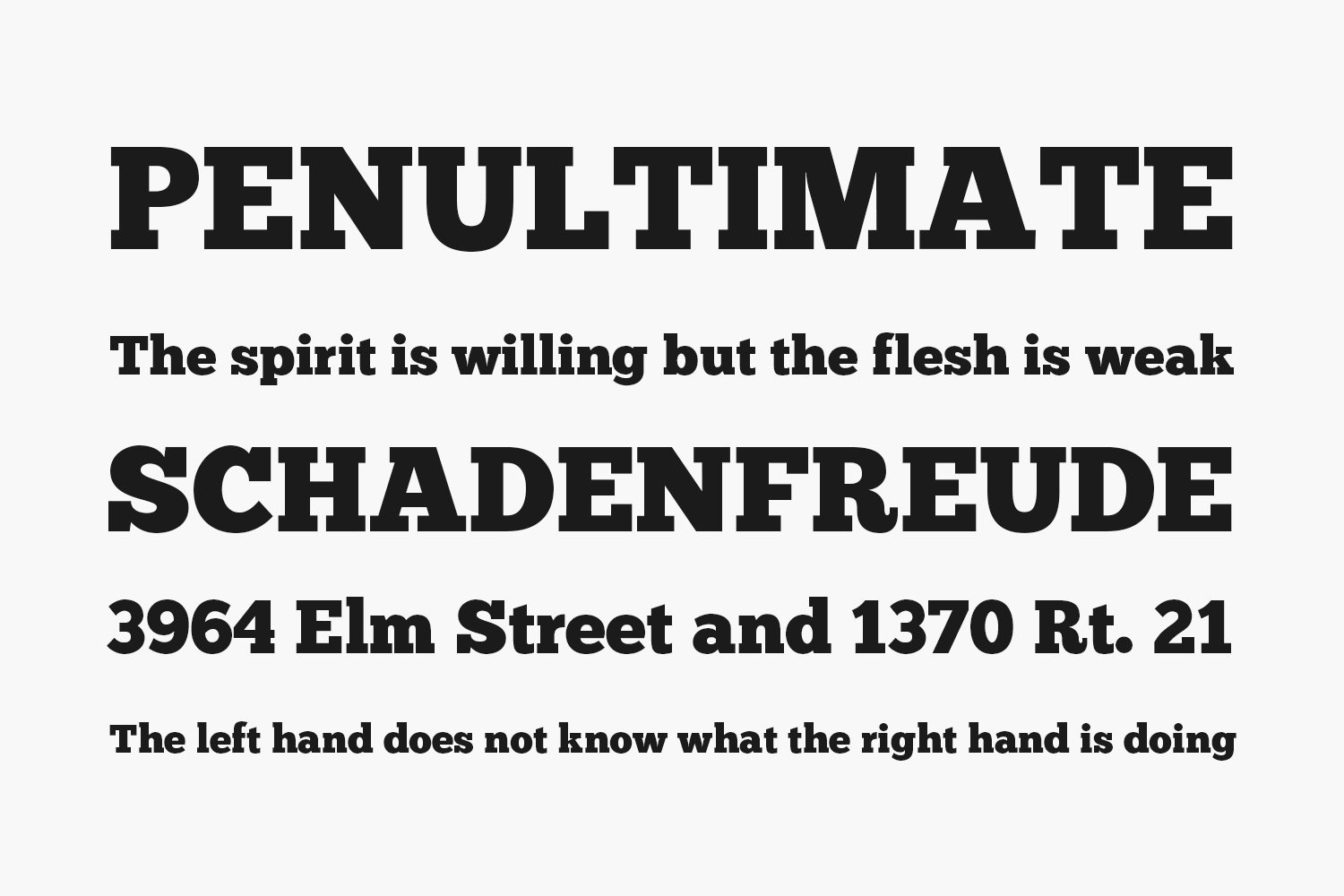
Chunk Free Font is an ultra-bold slab serif typeface that is reminiscent of old American Western woodcuts, broadsides, and newspaper headlines. Used mainly for display, the fat block lettering is unreserved yet refined for contemporary use.
Designed by The League of Moveable Type